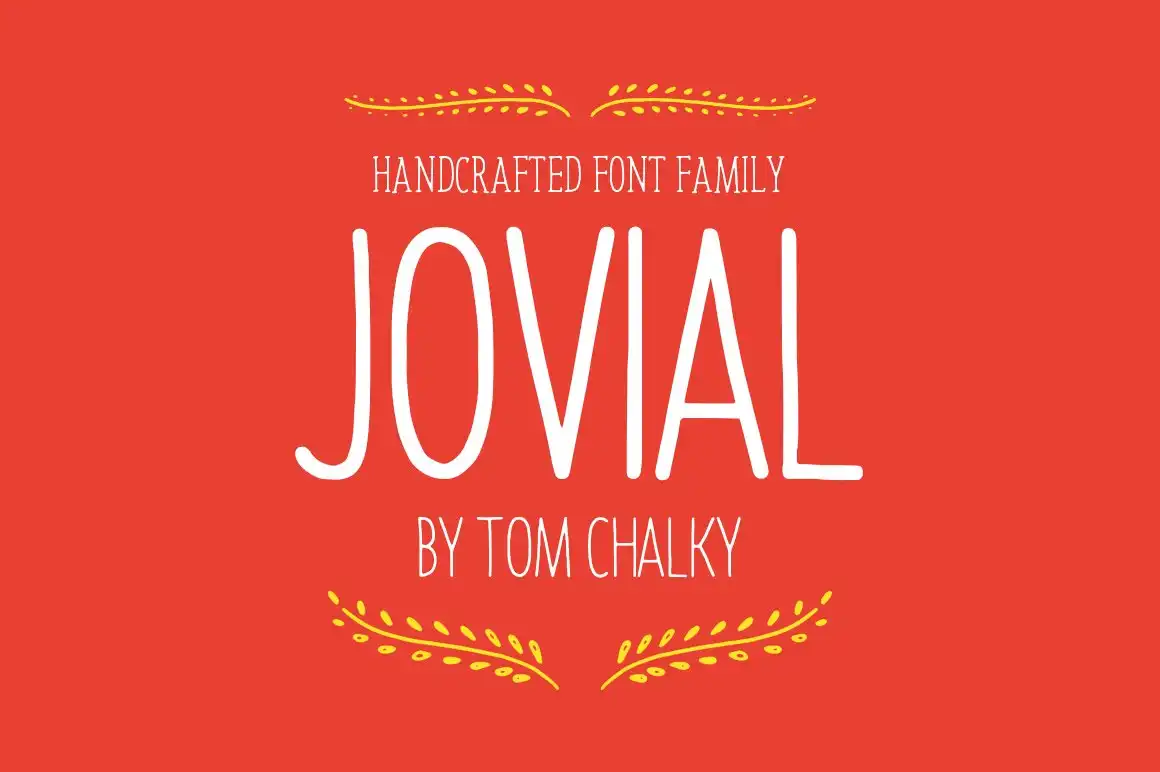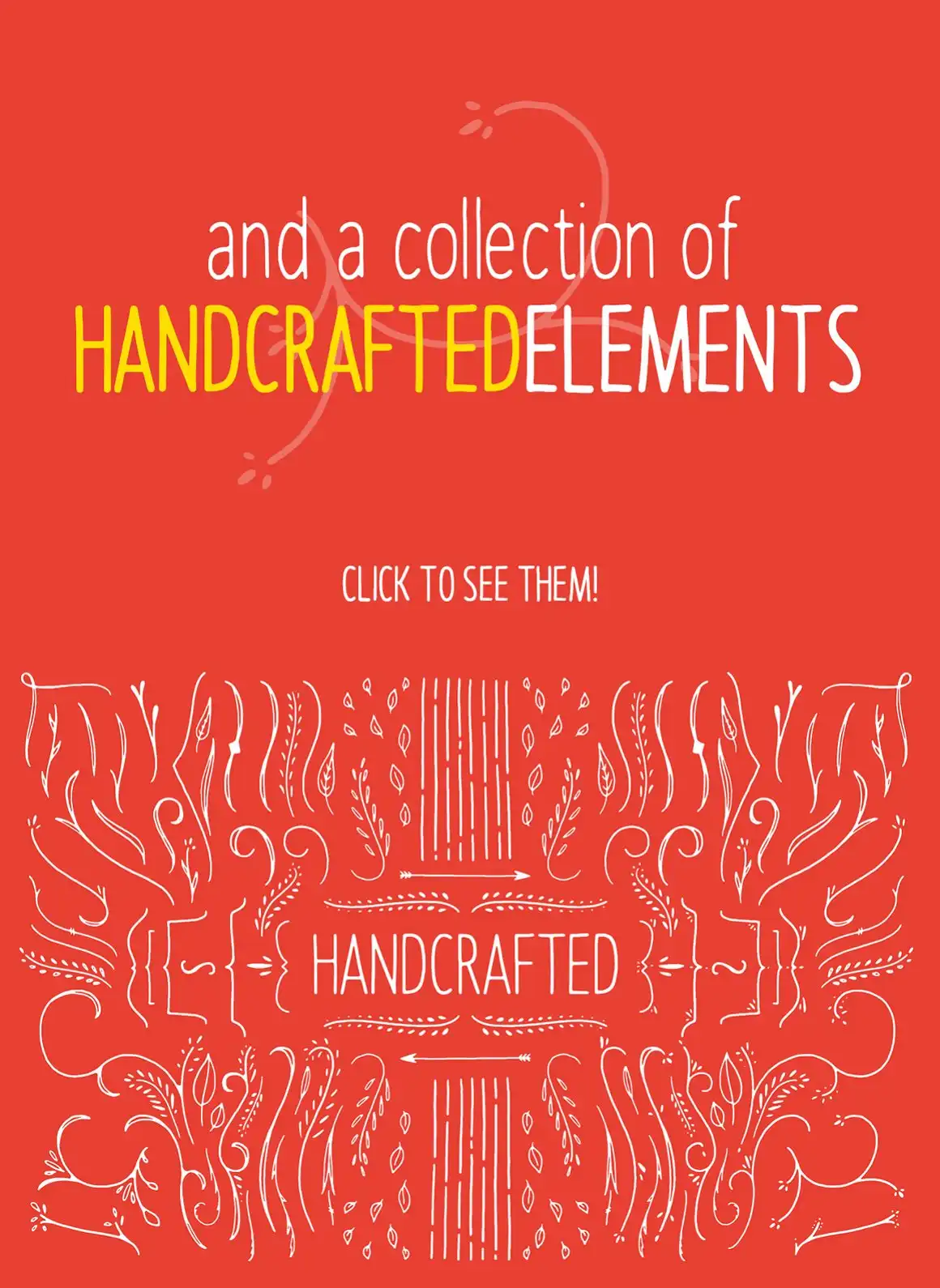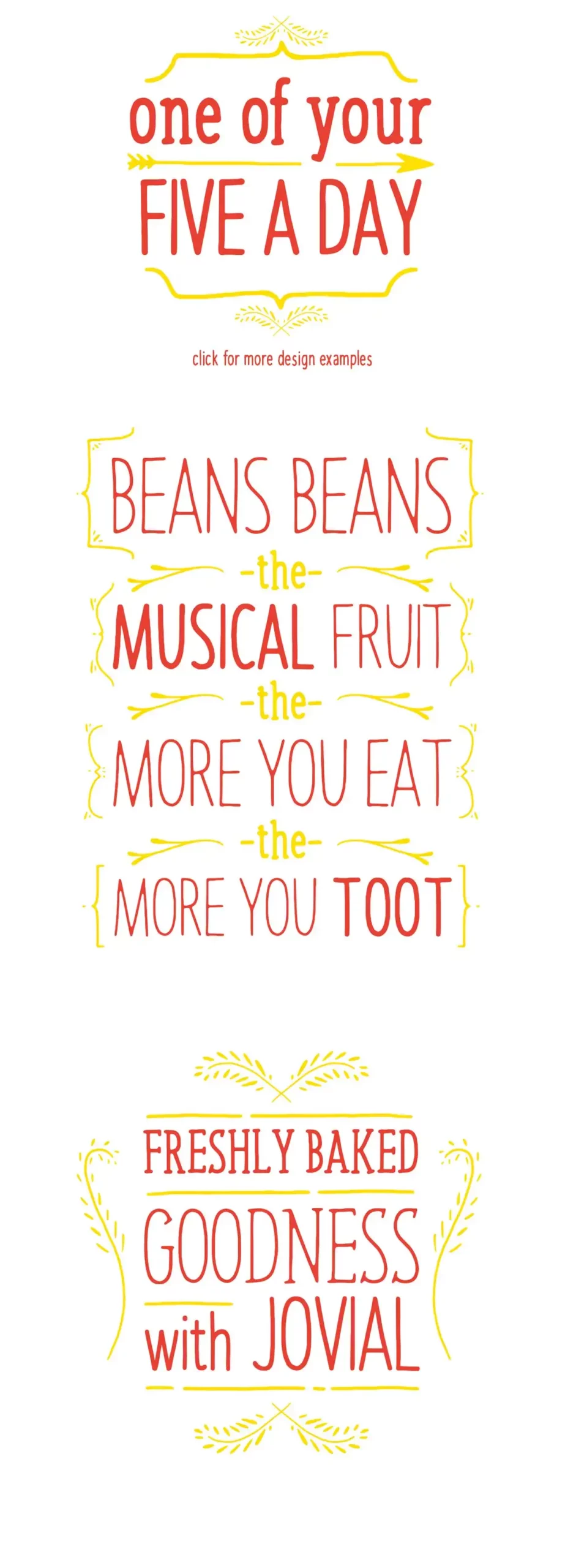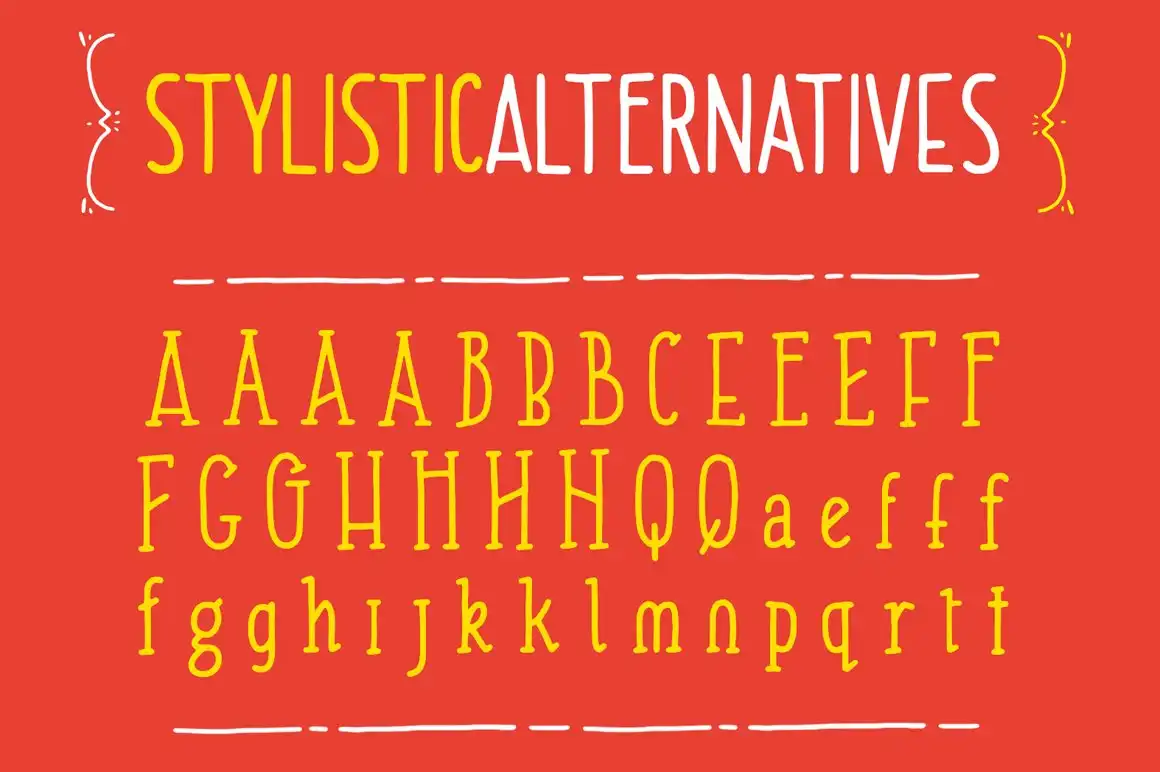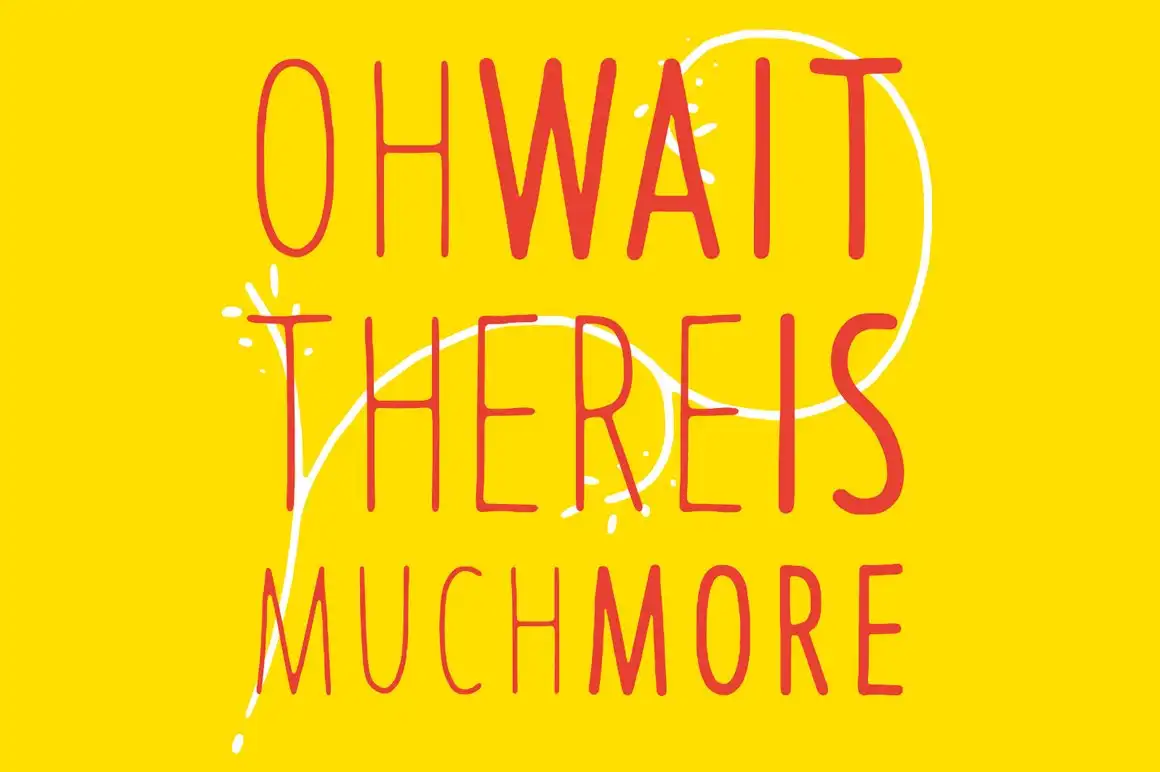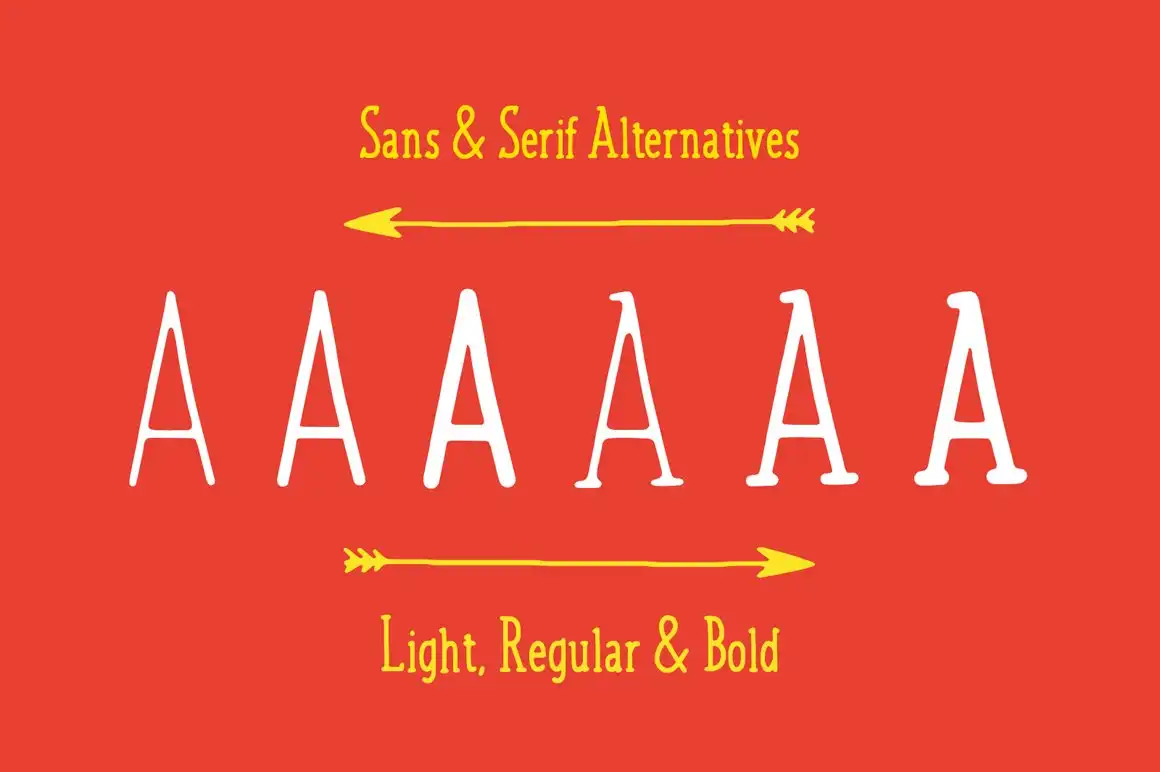
The Jovial Font Family is all about fun and creativity! Designed to be friendly and quirky, this family includes both Serif and Sans-Serif options, each available in three weights: Light, Regular, and Bold. This versatility makes it ideal for a wide range of applications, from logos to invitations! 🌟
- Handcrafted Design: Each font is meticulously crafted, ensuring a unique and charming appearance that stands out.
- Bonus Design Elements: Enjoy a set of handcrafted vector design elements that pair perfectly with the Jovial fonts, giving you even more creative options! 🎨
- Stylistic Alternatives: With up to four stylistic alternatives for the most commonly used letters, you can easily customize the look of your text to fit your project’s vibe.
- Extensive Glyph Support: Featuring 229 glyphs, Jovial covers all major Western European languages, ensuring your designs can reach a wider audience.
This font family is perfect for graphic designers, logo creators, and anyone looking to add a playful touch to their projects. Whether you’re designing for Jovial Family Farms or crafting unique invitations, this font family will bring your vision to life! 💖
Looking for a creative font that stands out? The Jovial Font Family is your answer! With its fun and quirky design, it’s perfect for any project that needs a bit of personality. Plus, don’t forget to check out the bonus elements that come with it! 🎈